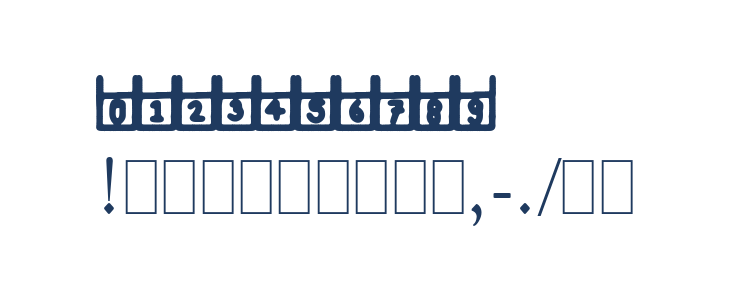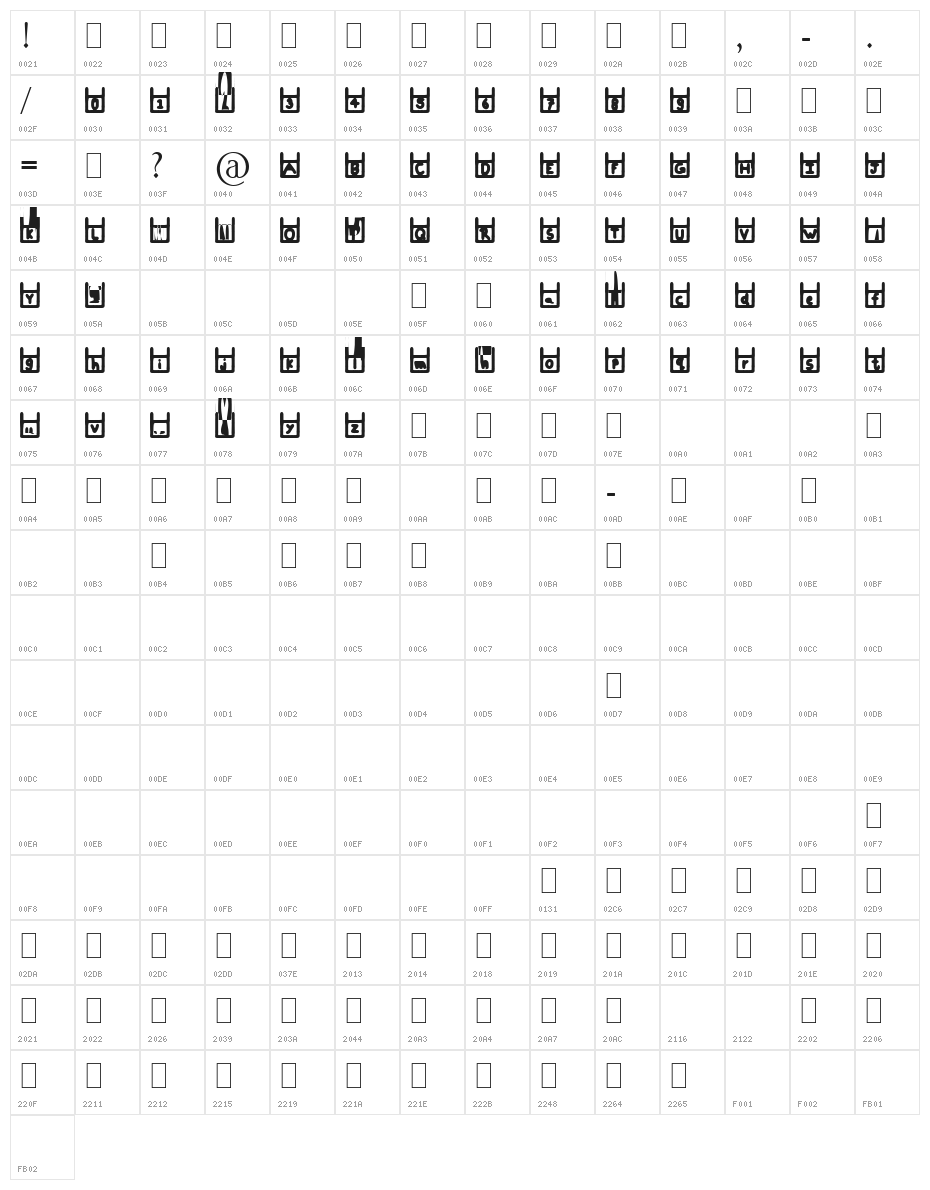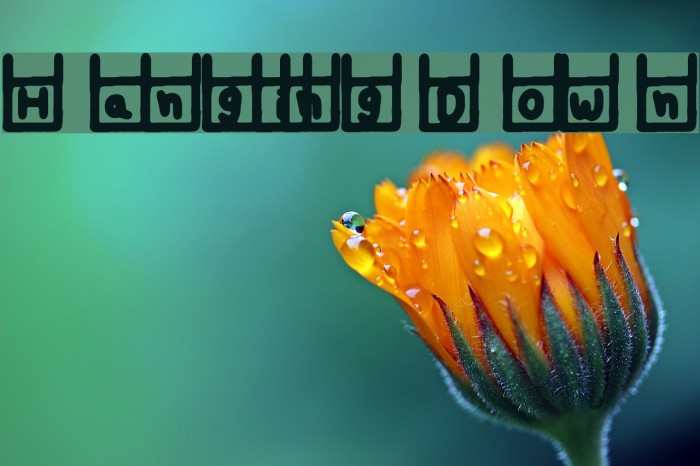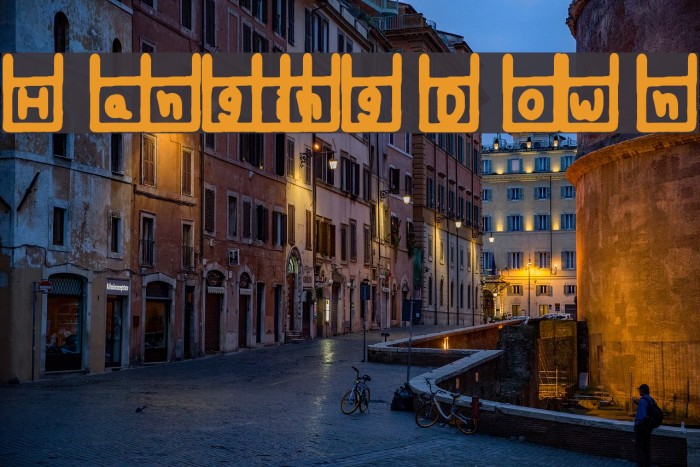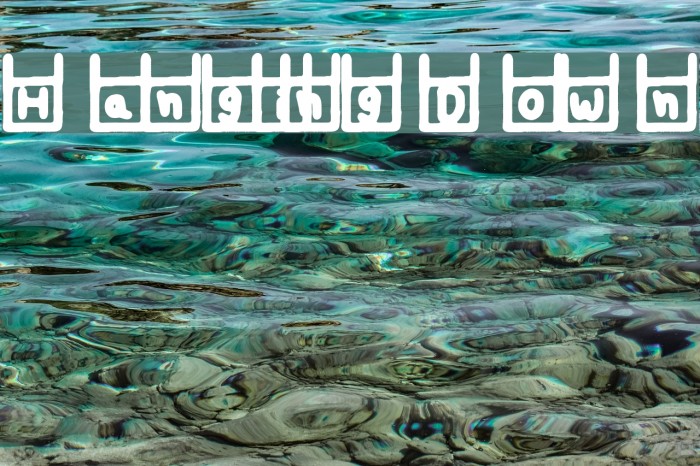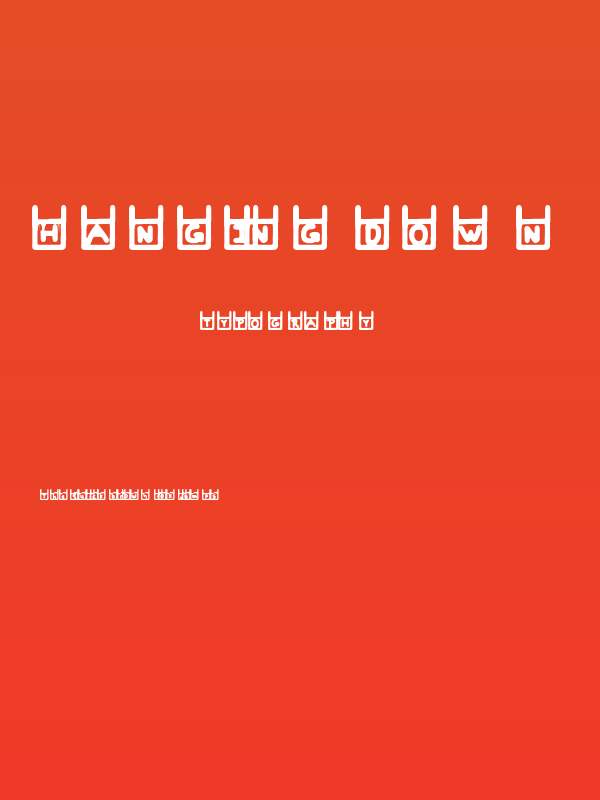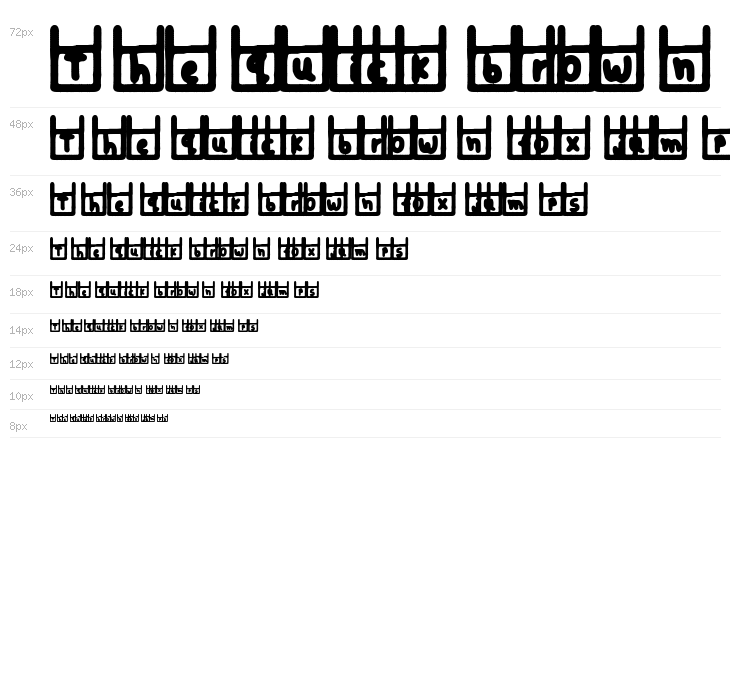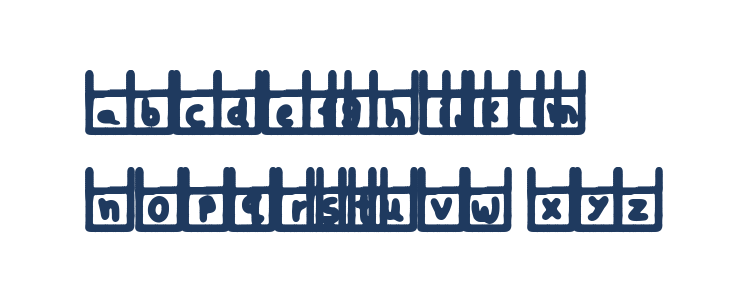
Hanging Down Font
Hanging Down Description
This font features a unique design where each character appears to be hanging from a horizontal line, creating a playful and whimsical effect. The letters are bold and rounded, with a consistent thickness throughout, giving them a cartoonish and friendly appearance. The uppercase and lowercase letters maintain the same hanging style, ensuring uniformity across the alphabet. Numbers and special characters are also included, each adhering to the same hanging motif. The overall look is both decorative and distinctive, making it stand out in any design project.